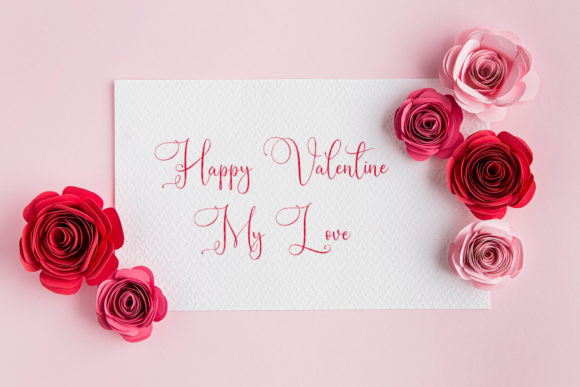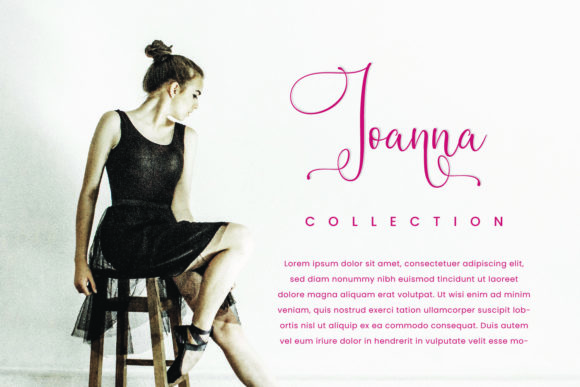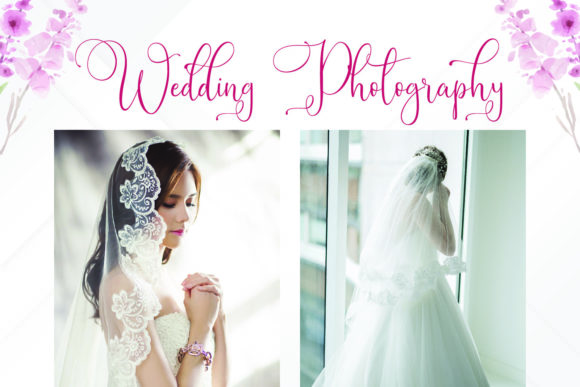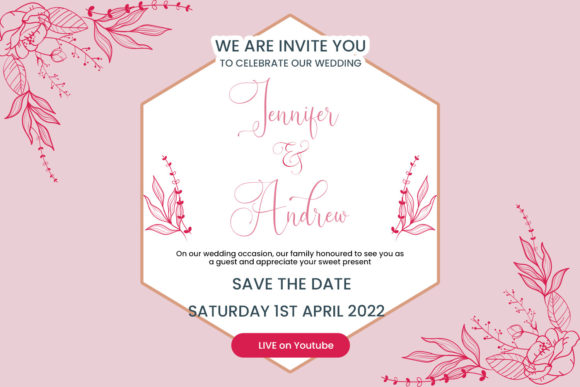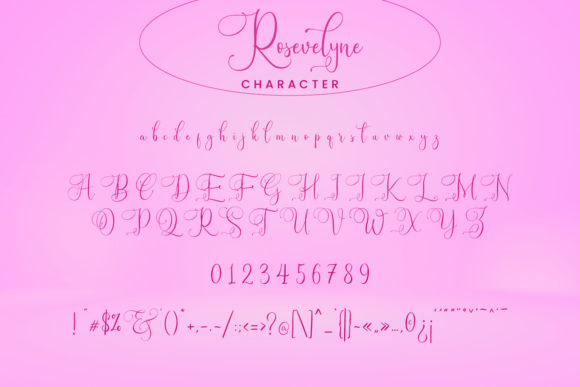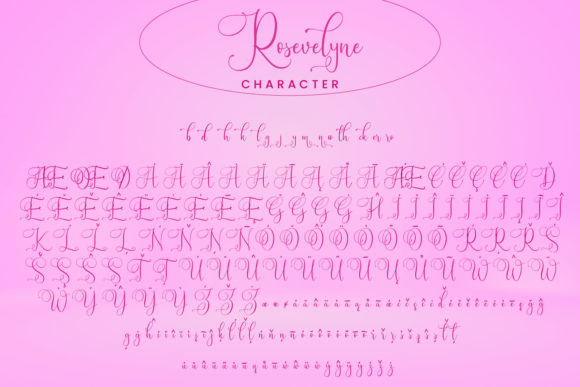
Introduction to Rosevelyne Font
Have you ever stumbled upon a beautifully designed invitation that left you breathless? Maybe it was the perfect blend of elegance and whimsy, or the way the words danced across the page in perfect harmony. For designers, these moments are what drive our passion and creativity. And, for those who have ever struggled to find the perfect font for their next project, we have some exciting news.
Meet the Rosevelyne Font, a delicate script font that is sure to take your designs to the next level. With its high-quality design and PUA encoded features, this font is a game-changer for any creative project. Whether you’re working on a branding material, business card, or poster, the Rosevelyne Font is the perfect addition to your design resource toolkit.
Key Features of Rosevelyne Font
- Unique, elegant script font with a transparent background
- Includes 400+ glyphs, covering a wide range of languages
Honest Review: Rosevelyne Font
I recently had the opportunity to try out the Rosevelyne Font for a creative project and I must say it’s been a delightful experience. As a designer, I’m always on the lookout for high-quality design resources that can elevate my work, and Rosevelyne Font definitely fits the bill.
Here are some of the things that work well with Rosevelyne Font: ✨ It’s available as a free download, making it an excellent choice for designers on a budget. The font is also available in a variety of weights and styles, giving you plenty of options to experiment with. I particularly like the elegant and sophisticated feel of the font, which makes it perfect for projects that require a touch of luxury.
- ✨ Elegant and sophisticated feel
- ✨ Available in multiple weights and styles
However, there are a few limitations to consider: ⚠️ The font is not ideal for projects that require a bold or distressed look, as it tends to lean towards more classic and refined designs. Additionally, the transparent background option can be a bit tricky to work with, but this is a minor issue.
Overall, I’m thoroughly impressed with the Rosevelyne Font and would highly recommend it to fellow designers looking for a high-quality design resource for their creative projects.
How to Use Rosevelyne Font
Rosevelyne Font is a high-quality, elegant font perfect for creative projects. It’s available for free download and features a transparent background, making it versatile for various design applications.
Getting the Most Out of Rosevelyne Font
To get the most out of Rosevelyne Font, use it in combination with other design elements, such as graphics or images. Experiment with different font sizes and styles to create a unique visual effect.
Rosevelyne Font is ideal for:
- Editorial and publishing projects